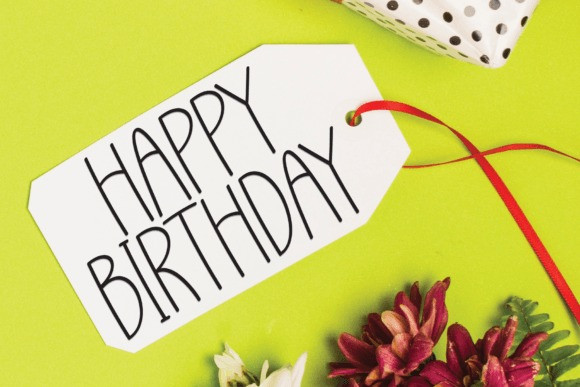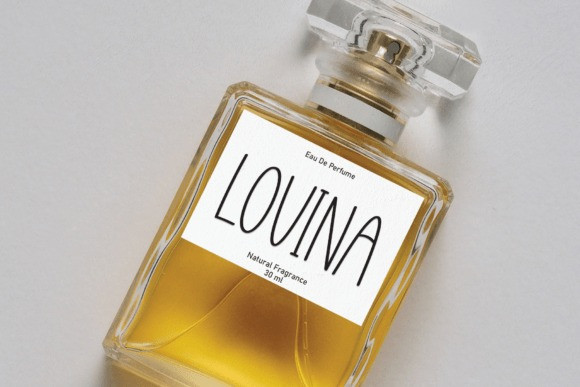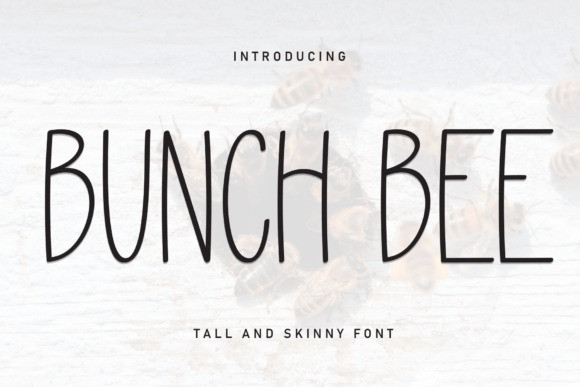
Bunch Bee Font
Bunch Bee Font: is a cute and friendly handwritten font. Cute and fun, this font is ideal for writing wedding invitations, cards, or any other design that needs a little fun!